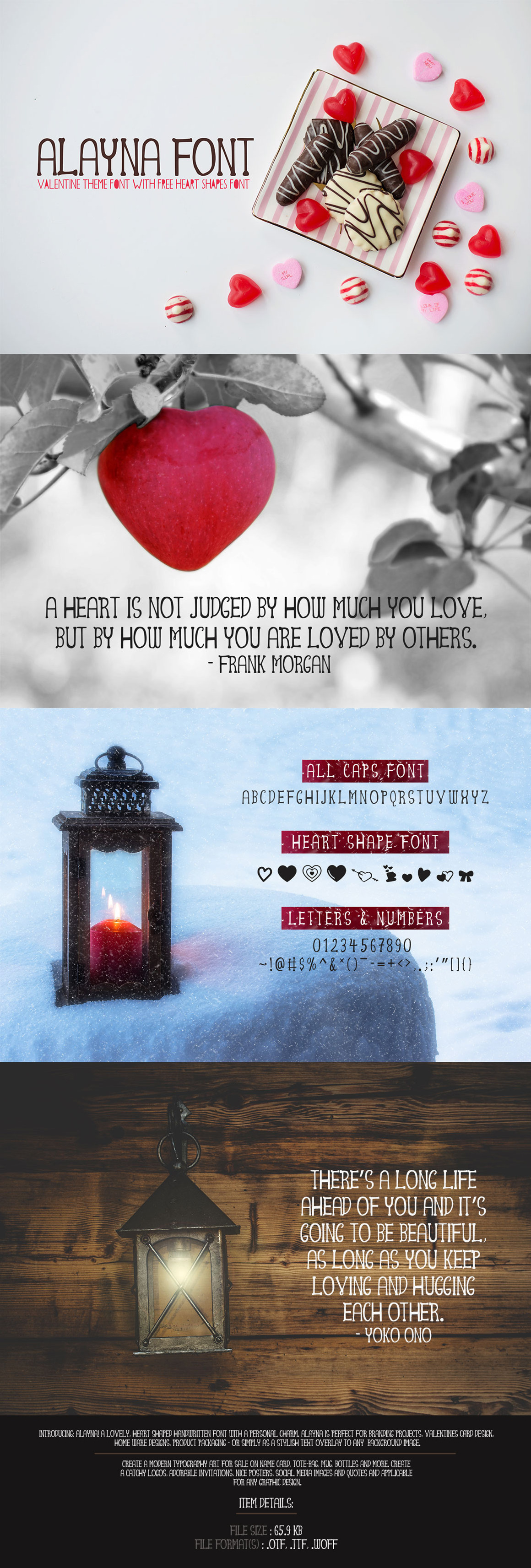
Alayna Valentines Love Font
Alayna Valentines Love Font is perfect for romantic wedding invitations, Valentine's Day cards, love-themed greeting cards, romantic blog headers, couples photography branding, anniversary celebrations, romantic restaurant menus, and heartfelt personal stationery.
Alayna Valentines Love Font is exciting because it captures the essence of romantic love with delicate letterforms and charming decorative elements that create intimate emotional connection. Its whimsical character and heart-warming details evoke feelings of affection and tender romance, making every message feel personal and heartfelt.
Alayna Valentines Love Font family includes regular weight with romantic alternates, decorative hearts, love-themed ornaments, and stylistic flourishes, providing designers with comprehensive options for creating authentic romantic typography experiences.
Alayna Valentines Love Font Free Download delivers premium romantic typography that embodies the magic and tenderness of love celebrations. This enchanting typeface collection showcases exceptional attention to romantic detail through its delicate character construction and charming decorative elements that create genuine emotional appeal. The font's loving personality makes it particularly suitable for wedding professionals, romantic event planners, couples photographers, and love-themed businesses seeking to establish authentic romantic atmosphere that resonates with hearts seeking connection.
Creative professionals consistently select Alayna Valentines Love Font for projects requiring emotional warmth and romantic authenticity. Its tender character works magnificently in wedding industry applications, Valentine's Day campaigns, anniversary celebrations, and romantic hospitality venues where emotional connection and heartfelt communication drive customer engagement. The font's charming nature creates memorable romantic experiences that celebrate love's special moments.
The Alayna Valentines Love Font download package includes romantic ornaments, heart decorations, and love-themed symbols that enhance its emotional appeal and design versatility. This comprehensive collection ensures professional results in romantic design projects requiring authentic love-themed typography. The font performs exceptionally in both intimate personal applications and broader commercial romantic campaigns where its heartfelt character adds significant emotional value.
Design teams appreciate Alayna Valentines Love Font's ability to create instant emotional connection through its distinctive romantic character and heartfelt visual appeal. Its tender styling transcends seasonal trends while maintaining the emotional impact required for love-themed market positioning, making it an essential tool for brands seeking to establish deep emotional connections through authentic romantic typography and superior heartfelt communication.